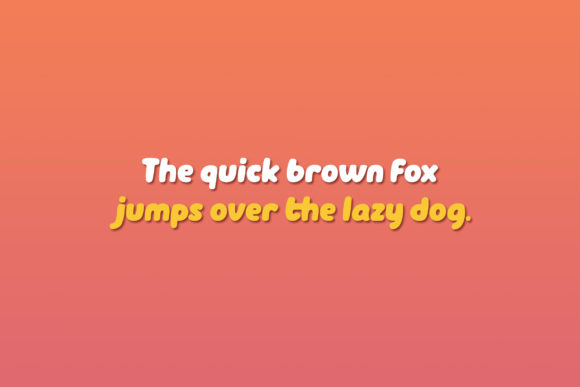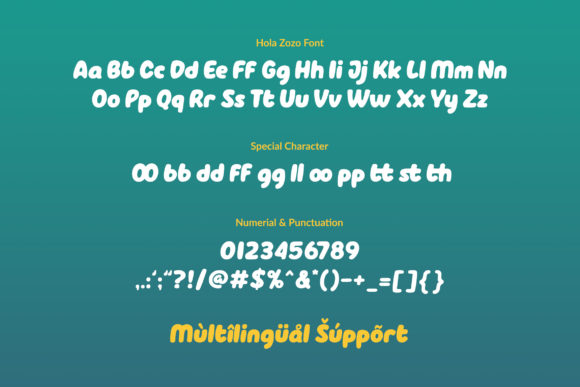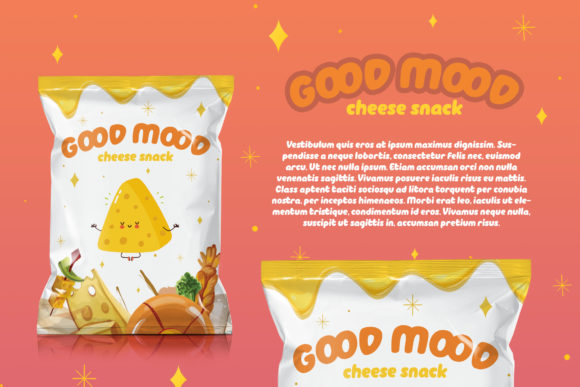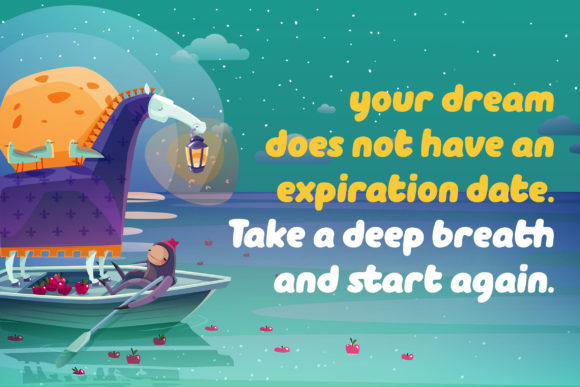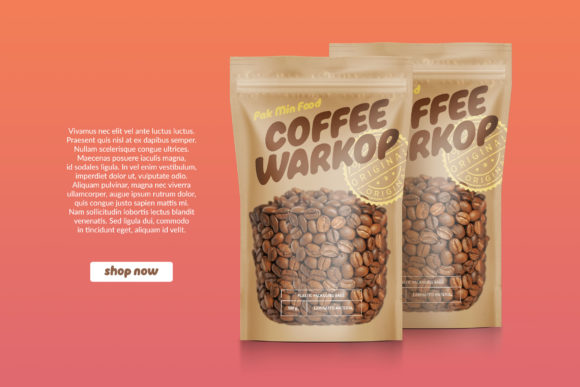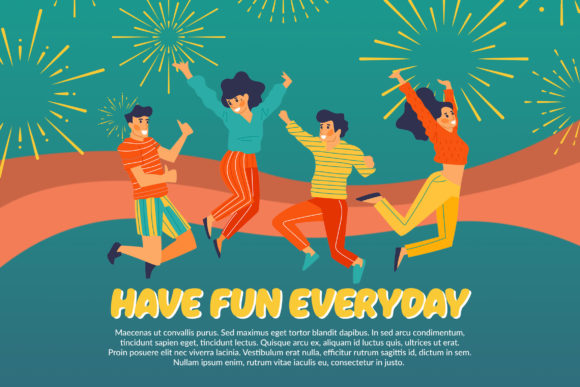
Introduction to Hola Zozo Font
Hola Zozo is a fun and friendly display font.
Fall in love with its playful look & feel .
Key Features of Hola Zozo Font
Why Choose Hola Zozo Font?
Hola Zozo Font offers exceptional quality and versatility, making it a valuable addition to your design toolkit. Whether you’re creating for personal projects or commercial use, Hola Zozo Font delivers professional results.